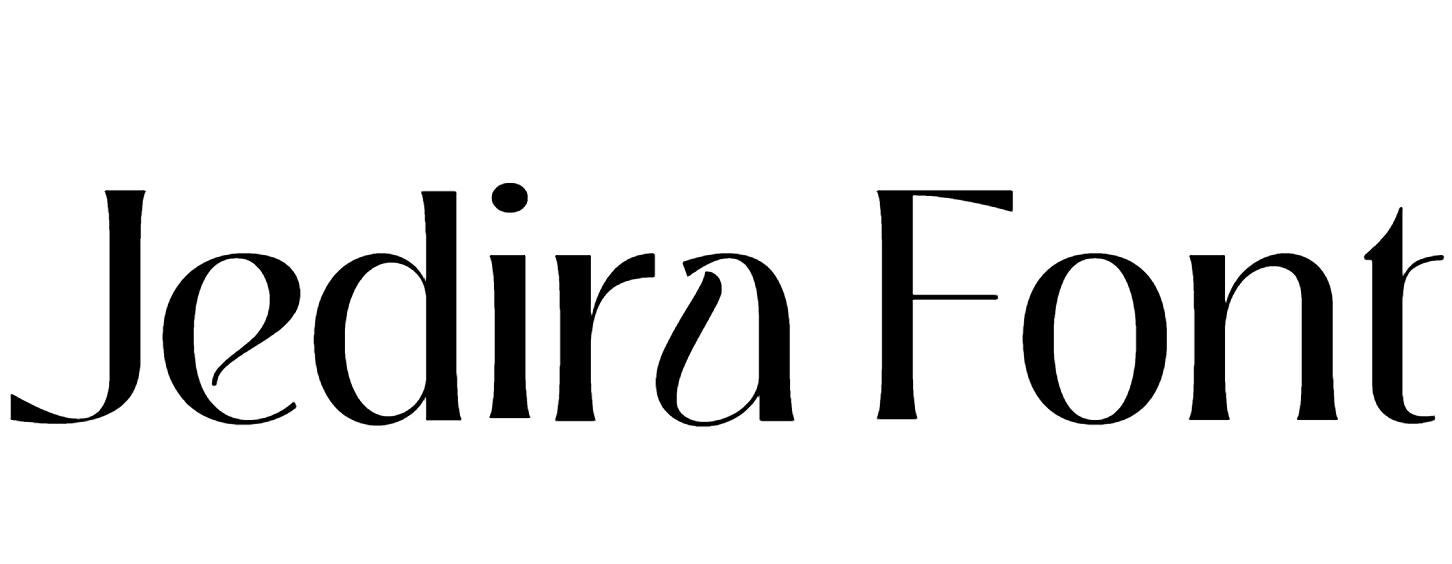
Jedira
Jedira is a serif font designed by Kadek Mahardika (2023). It has the traditional, bookish feel of type you see in novels, newspapers and long-established brands. The free download includes two styles, and you can try every one of them with your own text in the preview above.
- Designer: Kadek Mahardika
- Glyphs: 440 in the Regular style
- OpenType features: Ligatures (including optional ones) and fractions
What You Can Type With Jedira
You get every letter from A to Z in both cases and all the numbers from 0 to 9, which means Jedira can handle full sentences, dates and prices. Everyday marks like &, !, ? and @ are there too. Thanks to its accented letters, it also works for Spanish, French, German, Portuguese and Italian, not just English.
Where Jedira Works Best
Jedira is a natural fit for book covers, magazine headlines and classic branding. Serif fonts shine in headlines and printed text. For long paragraphs on phones, check that it still reads well at small sizes. Because the family has more than one style, you can mix them in a single design for headings, subheadings and highlights.
Does Jedira support accented letters?
Yes. Jedira includes the accented letters needed for Spanish, French, German, Portuguese and Italian, so it works for more than just English.